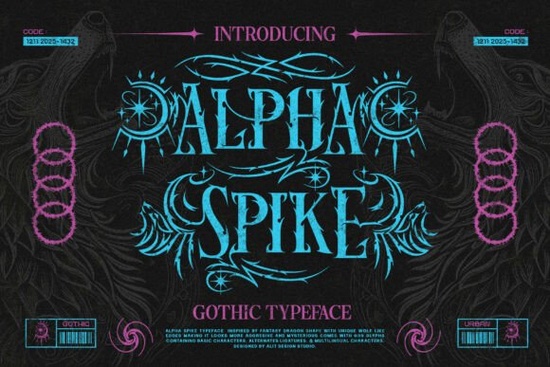
If your design needs a bold, dark, and edgy look, the Alpha Spike Font delivers exactly that. This neo-gothic blackletter style is built from sharp, flame-like shapes inspired by dragon scales and wolf fangs. It's a popular choice for designers working on metal band logos, streetwear graphics, or fantasy RPG posters. The font is available from Alpha Spike Font on Creative Fabrica, where you can preview its full glyph set and test it in your own projects.
What makes Alpha Spike Font different from other blackletter fonts?
Most blackletter fonts lean heavily into medieval or gothic revival styles. Alpha Spike, however, blends those traditional forms with a futuristic, "cyber-gothic" edge. The terminals (ends of strokes) are razor-sharp, and the curves have a flame-like quality that makes it look aggressive and alive. That contrast between ancient darkness and modern aggression is what sets it apart. It fits equally well on a parchment-style background or in neon cyberspace environments.
Another differentiator is the sheer number of design options. The font includes 929 glyphs, plus four stylistic sets (SS01–SS04) for uppercase characters. This means you can mix and match letterforms to create a custom, hand-drawn look without extra software work. The aggressive ligatures also add flow and bite to key word combinations, so your headlines feel cohesive and powerful.
How can you use Alpha Spike Font in your projects?
The main use case is for display purposes headlines, logos, and titling. Because of its strong personality, it works best when you need to grab attention quickly. Here are some specific ideas:
- Band merchandise and album covers – Metal, industrial, dark synthwave, or any genre that wants a menacing aesthetic.
- Streetwear and apparel graphics – Hoodies, t-shirts, and hats with bold lettering benefit from the font's sharp contrast. Pair it with a clean sans-serif for balance.
- Horror and dark fantasy posters – Whether you're designing for a local haunted attraction or a tabletop RPG campaign, Alpha Spike gives an instant ominous feel.
- Print-on-demand products – Many POD sellers use it for mugs, phone cases, and wall art because the glyphs stand out even at small sizes. Check the letter spacing carefully to keep readability.
- Tattoo flash art – The spike details translate well into ink designs, especially when used for short phrases or single words.
What design features does Alpha Spike Font include?
Besides the stylistic sets and glyph count, here are the key technical details:
- Multilingual support – It covers a wide range of Latin-based languages, so you can localize your designs.
- Aggressive ligatures – Certain letter pairs automatically connect in a way that reinforces the sharp, flowing style.
- OpenType features – You can access the alternates and ligatures in most design software (like Illustrator, Photoshop, or Affinity). No extra plug-ins needed.
The font is designed as a display typeface, meaning it's not meant for long body text. Keep it to headlines or short phrases of five words or fewer for maximum impact. You can test its readability by setting a mockup of your intended use case before committing to a final design.
Which other fonts pair well with Alpha Spike?
Because Alpha Spike is so dominant, it works best with a simple, neutral counterpart for body text or secondary headlines. Some good matches include:
- Clean sans-serifs like Montserrat, Lato, or Inter.
- Soft script fonts for a modern, feminine contrast (if your project allows it).
- Distressed or grunge fonts for a rough, underground feel.
If you're building a font family for a brand, consider using Rope Cowgirl Font for a western-inspired accent, or School Doodle Stripe Font for playful, sketchy elements in children's or educational content. Both provide visual variety without competing with Alpha Spike's intensity.
Practical tip for using Alpha Spike Font: Start by applying it to a single word or short phrase with all caps or title case. Experiment with different stylistic sets (SS01–SS04) to see which letter shapes fit your brand's tone. For a cyberpunk look, combine the font with neon colors (cyan, magenta, lime) on a dark background. For a classic dark fantasy feel, use it on textured antique paper or stone-like backgrounds. And always preview your design at actual print size sometimes the spikes become too fine below 18pt.